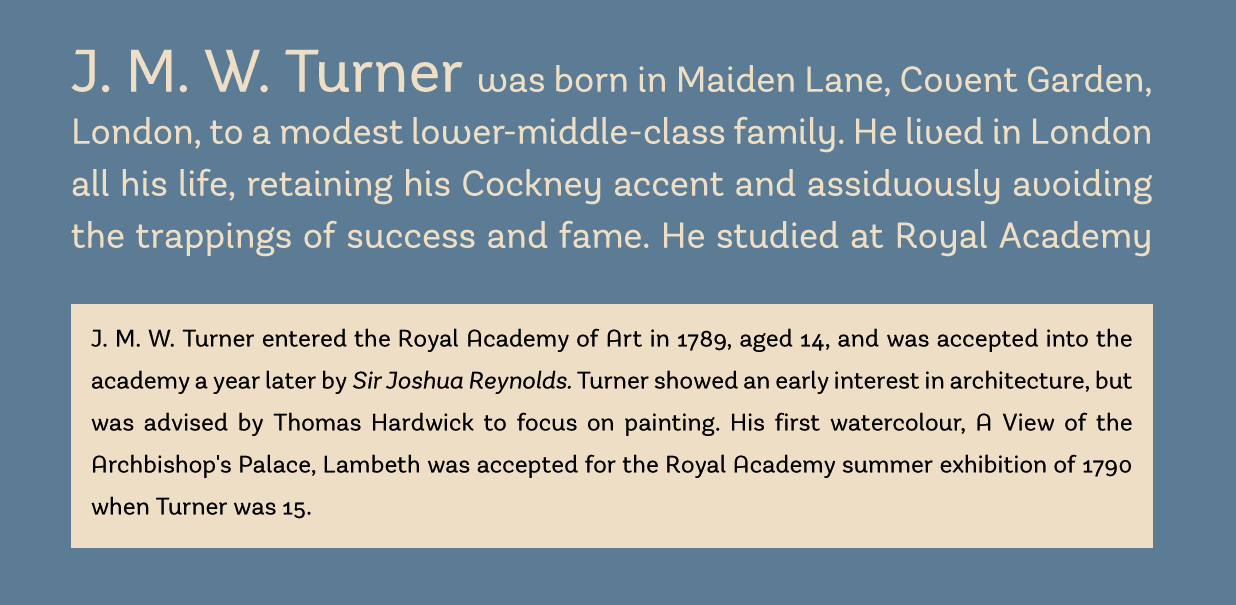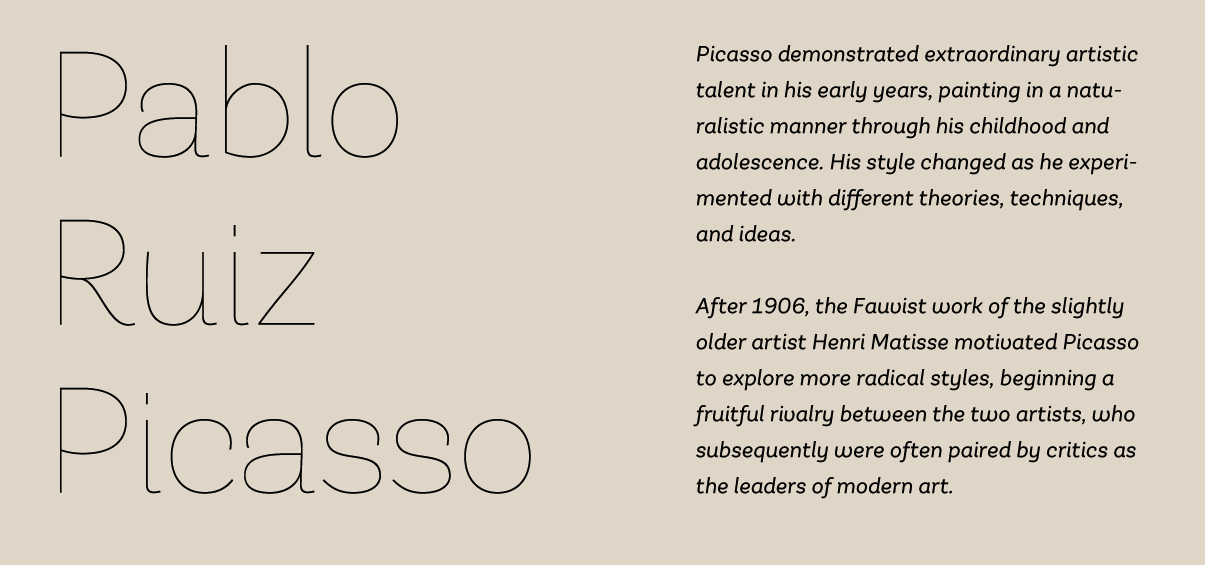
DTP Types Limited
[Malcolm Wooden]
DTP Types Ltd was launched in 1989 by Malcolm Wooden (b. London, 1956) from Crawley, West Sussex, England. Wooden worked at Monotype for over 20 years just before that. Malcolm Wooden joined Dalton Maag early 2008 to work on font engineering and production. DTP Types does/did custom font work, and sells hundreds of retail fonts. In the Headline Font Collection (50 fonts), we find reworked and extended designs (Apollo, New Bodoni (1996-2002), Camile, Engravers, and so forth), as well as fresh typefaces (Hellene handwriting, Finalia Condensed, Birac, Delargo Black, Delargo DT Rounded (comic book family), Dawn Calligraphy). In the Elite Typeface Library, there are type 1 and truetype typefaces for Western and East-European languages. For example, Elisar DT (1996, see also Elisar DT Infant) is a humanist sans family made by Malcolm and Lisa Wooden. Fuller Sans DT (1996) is a grotesk family by Malcolm Wooden. Greek and Cyrillic included. Other typefaces: Garamond 96, Pen Tip (Tekton-like). Fonts distributed by ITF and MyFonts.com: Berstrom DT, Beverley Sans DT (2007, comic book style face), Birac DT, Century Schoolbook DT, Convex DT, Delargo DTInformal, Delargo DT Infant, Engravers DT (1990), Finalia DT Condensed, Garamond DT, Garamond Nine Six DT, Goudy Old Style DT, Graphicus DT (1992, a 24-style geometric sans family), Kabel DTCondensed, Leiden DT (1992: after Dick Dooijes's Lectura), Macarena DT, Modus DT (2007), New Bodoni DT (1992), Newhouse DT (1992, a large neo-grotesque family), Office Script DT (1994, copperplate script), Pelham DT (1992), Pen Tip DT, Pen Tip DT Infant, Pretorian DT (a revival of an old Edwardian font by P.M. Shanks done by Ron Carpenter and Malcolm Wooden in 1992; for a free version, see Vivian by Dieter Steffman), Solaire DT, Triest DT, Vigor DT (2000---a slab serif family). Discussion: Something I don't get is that Vecta DT (2006) is based on Vecta (2005, Wilton Foundry)---same name, same sans family, what gives? Duet DT (2006, a calligraphic script) is by Robbie de Villiers of Wilton, based on his own Duet (2004). MyFonts page. The typophiles reserve harsh judgment: I recognize these designs by their original names. Slightly manipulating Times Roman, Optima, Icone, Franklin Gothic, Sabon, Tekton, does not make them new or original. Many of the designs are identical to the originals they're derived from (Carl Crossgrove), The DTP Types outfit sells the usual rip-off fonts under new and old names (e.g. Century Schoolbook DT, Engravers DT, Goudy Old Style DT, Kabel DT, etc.) (Uli Stiehl). In 2008, DTP announced a new newspaper and magazine text family, Arbesco DT (PDF), based on a 1980s photolettering family (see also here), and a simple 24-style architectural sans family called Sentico Sans DT (elliptical). They also published the marker family Pen Tip DT Lefty in 2008. In 2009, the calligraphic Trissino DT was published: it was named after Gian Giorgio Trissino (1478-1550) the Italian Renaissance humanist, poet, dramatist, diplomat and grammarian who was the first to explicitly distinguish I and J as seperate letter sounds. In 2020, he released Hastrico DT (a 13-style grotesque family), Hastrico DT Condensed. |